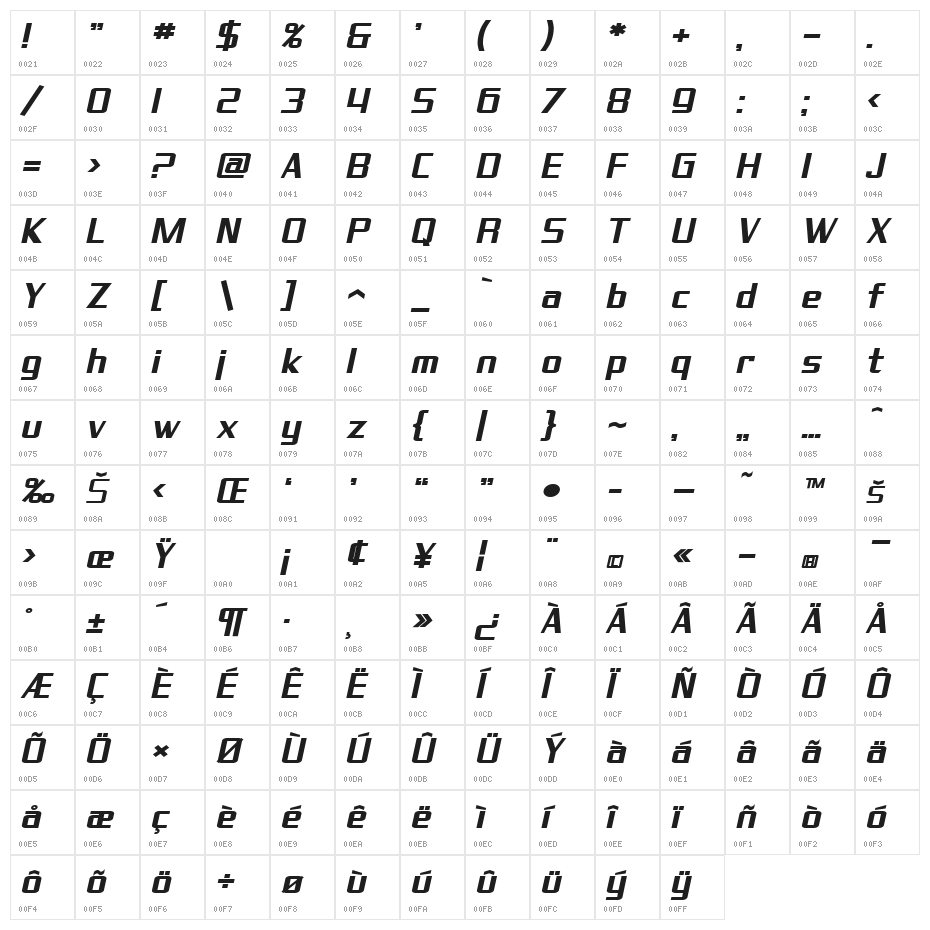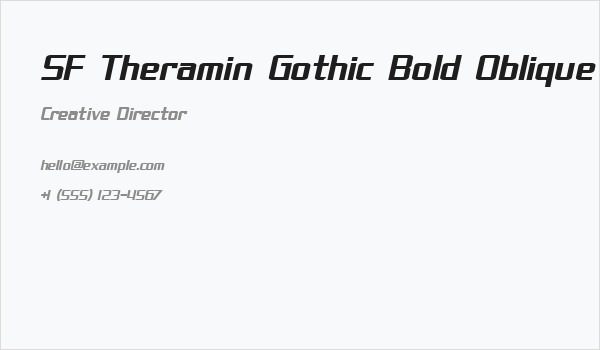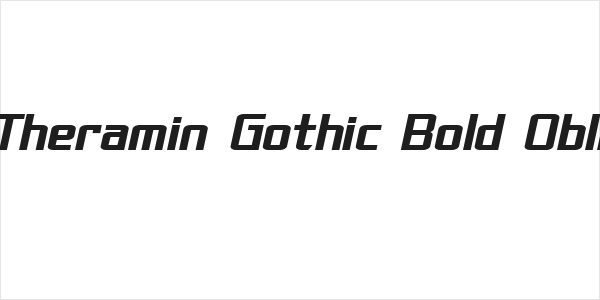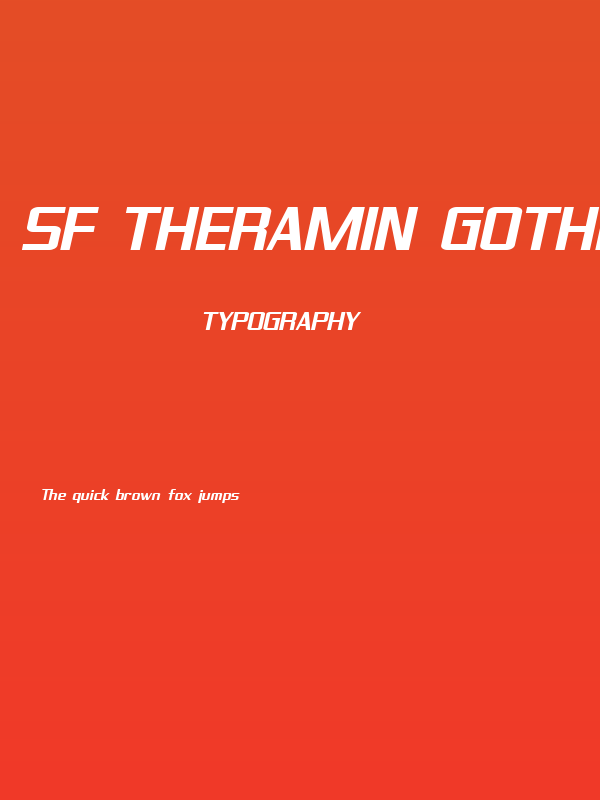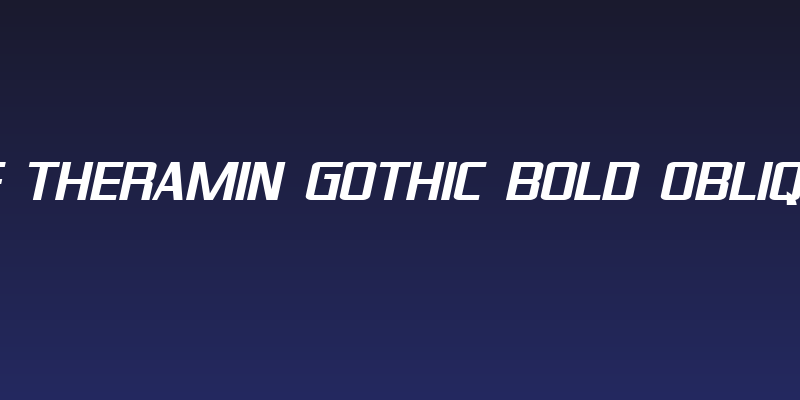
SF Theramin Gothic Bold Oblique Font
SF Theramin Gothic Bold Oblique Description
This font features a bold, oblique style with a modern and futuristic aesthetic. The characters are sharply angled, giving a sense of motion and dynamism. The uppercase letters are tall and narrow, while the lowercase letters maintain a consistent height, creating a cohesive look. The numbers and special characters are designed with the same angular precision, ensuring uniformity across all glyphs. The font's bold weight and oblique slant make it stand out, ideal for attention-grabbing headlines or branding materials. Its geometric structure and clean lines contribute to a sleek and professional appearance.
| Proposed Projects | Ideal for technology branding, sports team logos, dynamic posters, and modern web design. |